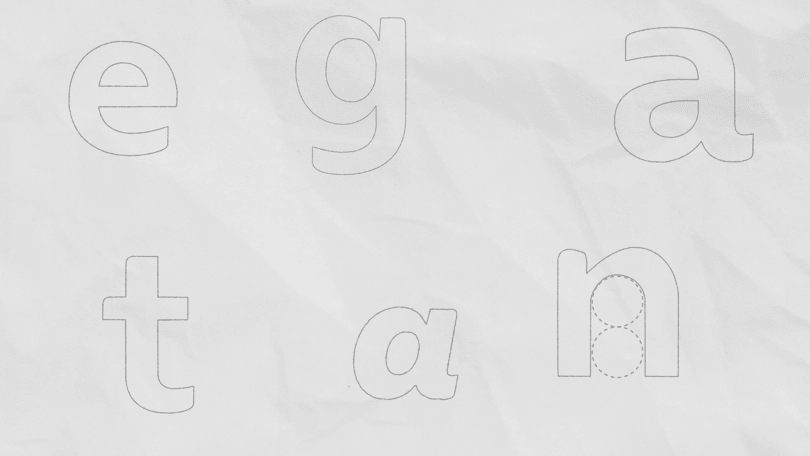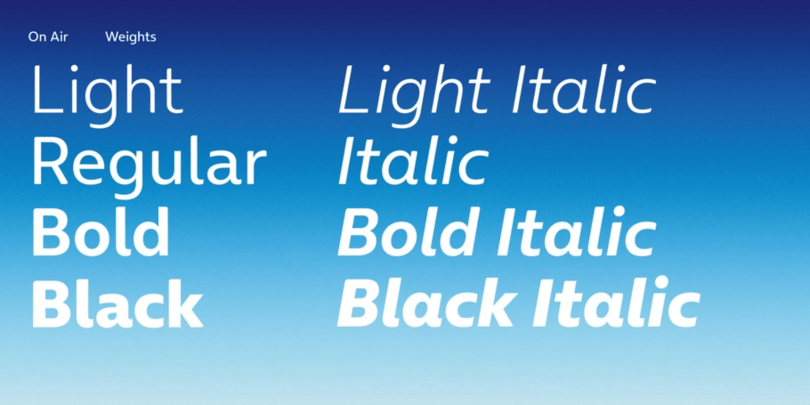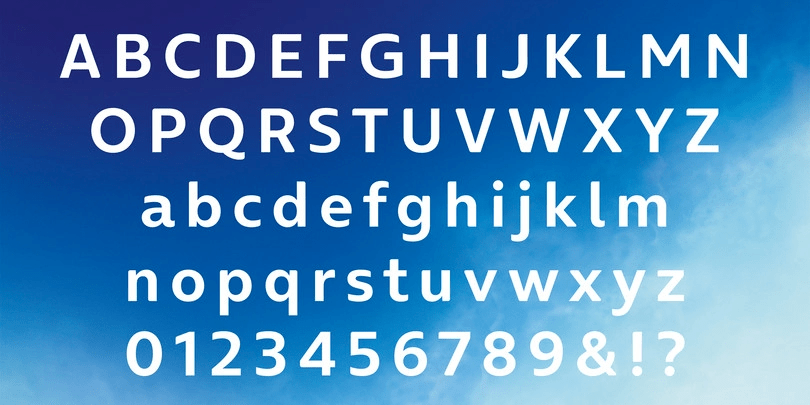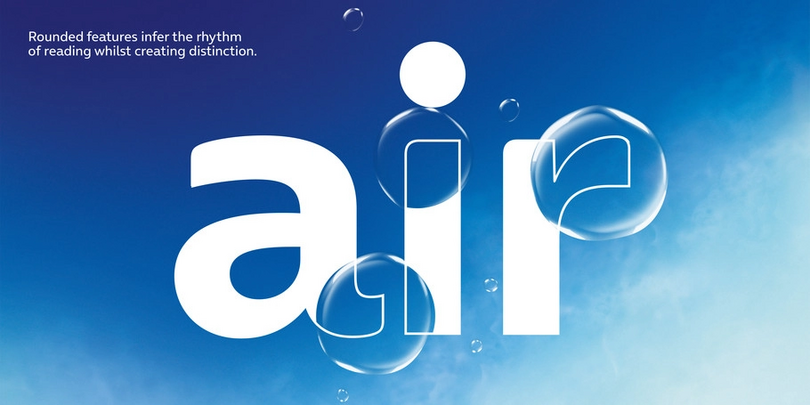
The new voice of O₂ - Custom typeface.
“ Fonts are an integral part of the brand’s DNA and how we visually communicate our message. A font can elicit an emotional response from customers.” ”
Paul Skerm - Creative Director, Brand Agency.
Monotype’s Creative Type Director Phil Garnham is joined by O₂ and their brand agency to discuss O₂’s new custom typeface, with an in-depth look at how this has propelled O2 to become a more digital and contemporary brand throughout different markets.
O₂ is Telefonica’s leading mobile-first brand which aims to make every day better. Standout customer experience and clear communication enables it’s customers to get the most out of mobile connectivity and that’s why O₂ is a brand that places typography front and centre. In every level of brand design, the clarity of text and the humanity of language lie at the brand’s heart.
Frutiger has been the voice of O₂ since their inception in 2002, but much like the world around us, the telco market is changing. Brands are adapting to the increasing demands of digital, as the reach of digital touch points grow, so does the need for continuity and authorship in every medium. O₂’s long relationship with Frutiger is testament to how great a design Frutiger really is, it’s a font that excels in clarity. It was very much on-trend when the brand launched, it’s a reliable workhorse but has become a bit predictable — not a distinctive brand maker.
As the O₂ brand looked to move forward, pivoting to the new normal, O₂ and their brand design agency contacted the Monotype Studio to discuss the design of a new typeface that could introduce a distinct and more human centred voice. A pared-back and simplified approach to a font family which has the ability to meet the broad demands and challenges that brands are facing today.
O₂ is a brand that looks beyond categories, it’s far bigger than a ‘Telco’. It is a life affirming brand that crosses sectors, a prevalent voice in the minds of many, both in-store and online, owner of 20 UK music venues and backer of England’s national rugby union team. The O₂ brand focuses on the human experiences that tech enables. Not the tech itself.
“ I’m sure that most brands today are aware of the importance of consistency. The key is having people who are not only passionate about it but know how to do it well. ”
Francisco Foncea, Corporate Global Brand Manager, Telefónica.
The project began with a kick-off meeting at the agencies London studio with the O₂ brand team, Creative Director, Paul Skerm and Monotype’s Senior Creative Type Director, Phil Garnham. We analysed the brands use of type, deep dived into the telco landscape and asked probing questions around the nature and personality of O₂, Frutiger likes and dislikes, discussions on type trends, and sharing initial sketchbook ideas… Custom type design is a collaborative process, and having these open conversations as a team helped to build a framework to ensure we could deliver on all aspects of the type design.
From the outset it was clear that a sense of openness and ‘breathability’ was going to be key to the new font’s success. Playing on this theme of ‘oxygen’ in type, we created a range of ideas that looked to geometry and circularity, accessibility, clarity, joyful liveliness, and warmth. This font needed to celebrate the human side of digital. We locked our new font ideas into ads using key phrases ‘Breathe it all in’, ‘Magical realism’, ‘Priority’ and asked the most basic of questions — ‘What feels right?’ ‘Does this type speak O₂?‘
Three ideas struck a chord and helped us firm up the brief. A sense of roundness was important, the letterforms needed to feel open. The O₂ brand gives peace of mind and therefore the design needed to be structurally simple. However, with Frutiger so firmly embedded into the brand, a fully open circular approach wasn’t an entirely viable option. Proportionally, the design needed to function company wide in new and old templates already using Frutiger as a placeholder, we needed to harmonise reflow whilst also evolving the letterforms tonally.
It was at this point we began developing a subtler approach to geometry and exploring circularity within letter stems and strokes. We introduced this idea of the human hand, a calligraphic influence where the letters round in and out as the pen moves, the frayed edges where writing meets type. A forward moving rhythm, where the type stems round away from a mechanical feeling and into a more human centred flow.
The typeface started coming alive, the character set grew and with it we spent a lot of time ensuring the font would resolve concerns around proportions, scaling, reflow, accessibility and distinction. We provided multiple creative options for all characters, added in figure sets and intelligent OpenType features that automate logo usage from within the font file. The font moved to brand team testing.
At this point we started thinking about the Italic styles and a possible display font for campaigns. Given the calligraphic influence of the Roman fonts, we were keen to make a cursive, more natural feeling italic font set. And for the display font, we wanted to make an interactive font style that could bring in another dimension whilst retaining synergy with the core font family. Paul and his team were experimenting and animating with an outline version of Frutiger, but applying outlines and animating was a cumbersome process. We pushed outside of the project scope and created three strokes of outline from the Bold font style.
The final custom fonts are named ‘On Air’ and ‘On Air Outline’ and create a cohesive brand language, aligned to the heart of O₂’s values of openness and trust.
On Air is an exclusive family of four weights of Light, Regular, Bold and Black plus Italics and On AIr Outline is available in 3 styles.
Watch the animated journey of O₂’s new custom typeface ‘On Air’ - putting oxygen in type.